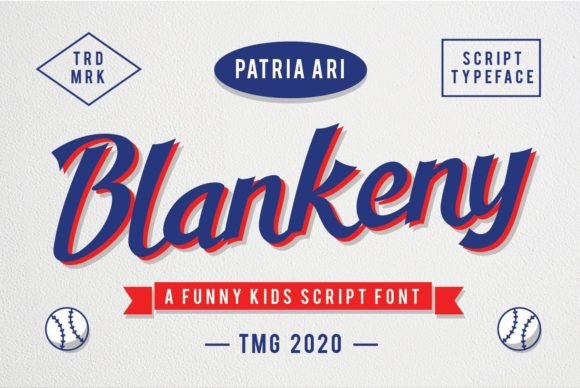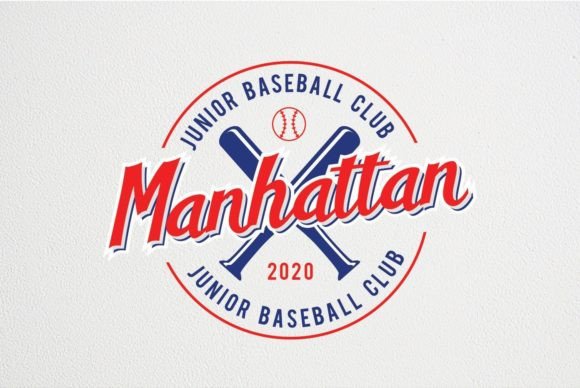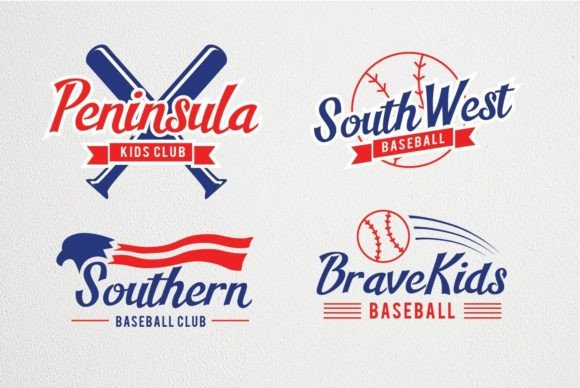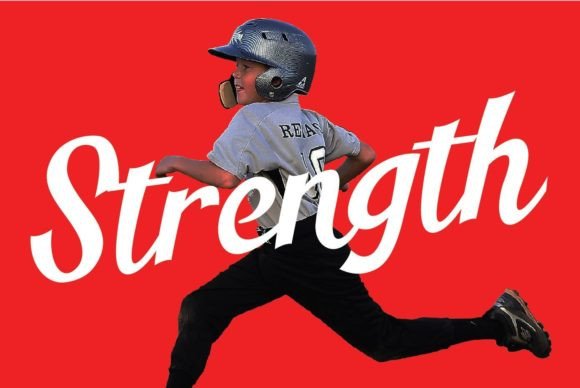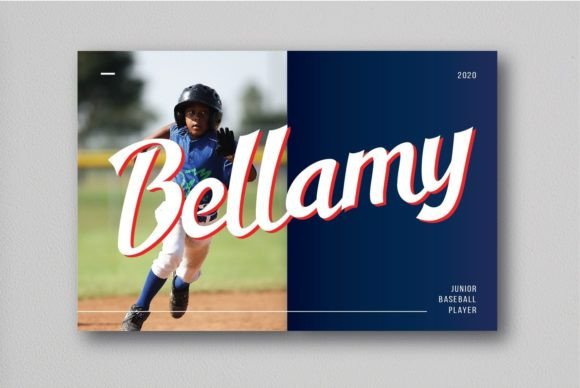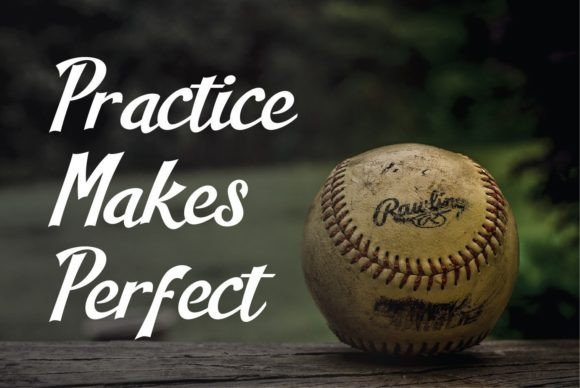
Introducing Blankeny Font: Elevate Your Designs with a Fun and Natural Handwritten Style
Are you tired of using the same old fonts in your designs? Look no further than Blankeny Font, a fun and natural handwritten font that’s incredibly versatile and perfect for taking your creative projects to the next level. In this article, we’ll dive into the world of Blankeny Font, exploring its features, benefits, and uses, and showing you how it can breathe new life into your designs.
What is Blankeny Font?
Blankeny Font is a beautifully crafted handwritten font that’s designed to add a touch of personality and whimsy to your designs. With its natural, effortless feel, this font is perfect for a wide range of projects, from branding and advertising to crafting and DIY tutorials. Whether you’re a professional designer or a crafty hobbyist, Blankeny Font is sure to become a favorite in your creative arsenal.
Key Features of Blankeny Font
- Fun and playful: Blankeny Font has a lighthearted, carefree feel that’s perfect for designs that need a bit of personality.
- Naturally handwritten: This font has a beautifully organic feel, with subtle imperfections and variations that give it a human touch.
- Incredibly versatile: Blankeny Font can be used for a wide range of projects, from elegant wedding invitations to fun and playful craft tutorials.
- Easily readable: Despite its playful feel, Blankeny Font is still highly readable, making it perfect for body text and longer blocks of content.
Benefits of Using Blankeny Font
So why choose Blankeny Font for your next project? Here are just a few benefits of using this amazing font:
- Adds personality to your designs: Blankeny Font is the perfect way to add a bit of whimsy and personality to your designs, setting them apart from the crowd.
- Perfect for creative projects: Whether you’re working on a craft tutorial, a DIY guide, or a creative blog post, Blankeny Font is the perfect choice.
- Great for branding and advertising: With its friendly, approachable feel, Blankeny Font is also perfect for branding and advertising projects, helping you connect with your audience.
Uses for Blankeny Font
So what can you use Blankeny Font for? The possibilities are endless! Here are a few ideas to get you started:
- Craft tutorials: Use Blankeny Font to add a personal touch to your craft tutorials, making them more engaging and fun to follow.
- DIY guides: Add a bit of personality to your DIY guides with Blankeny Font, making them more approachable and accessible.
- Wedding invitations: Use Blankeny Font to create beautiful, elegant wedding invitations that set the tone for a special day.
- Social media graphics: Add a bit of whimsy to your social media graphics with Blankeny Font, making them more engaging and shareable.
| Font Name | Blankeny Font |
| Author | P4tcreativa |
In conclusion, Blankeny Font is an amazing addition to any designer’s toolkit. With its fun and natural handwritten style, this font is incredibly versatile and perfect for a wide range of projects. Whether you’re a professional designer or a crafty hobbyist, Blankeny Font is sure to become a favorite. So why wait? Add Blankeny Font to your creative arsenal today and watch your designs come alive!
- Blankeny Font is a fun and natural handwritten font.
- It’s incredibly versatile and perfect for a wide range of projects.
- Use it to add personality and whimsy to your designs.
- Perfect for craft tutorials, DIY guides, wedding invitations, and social media graphics.